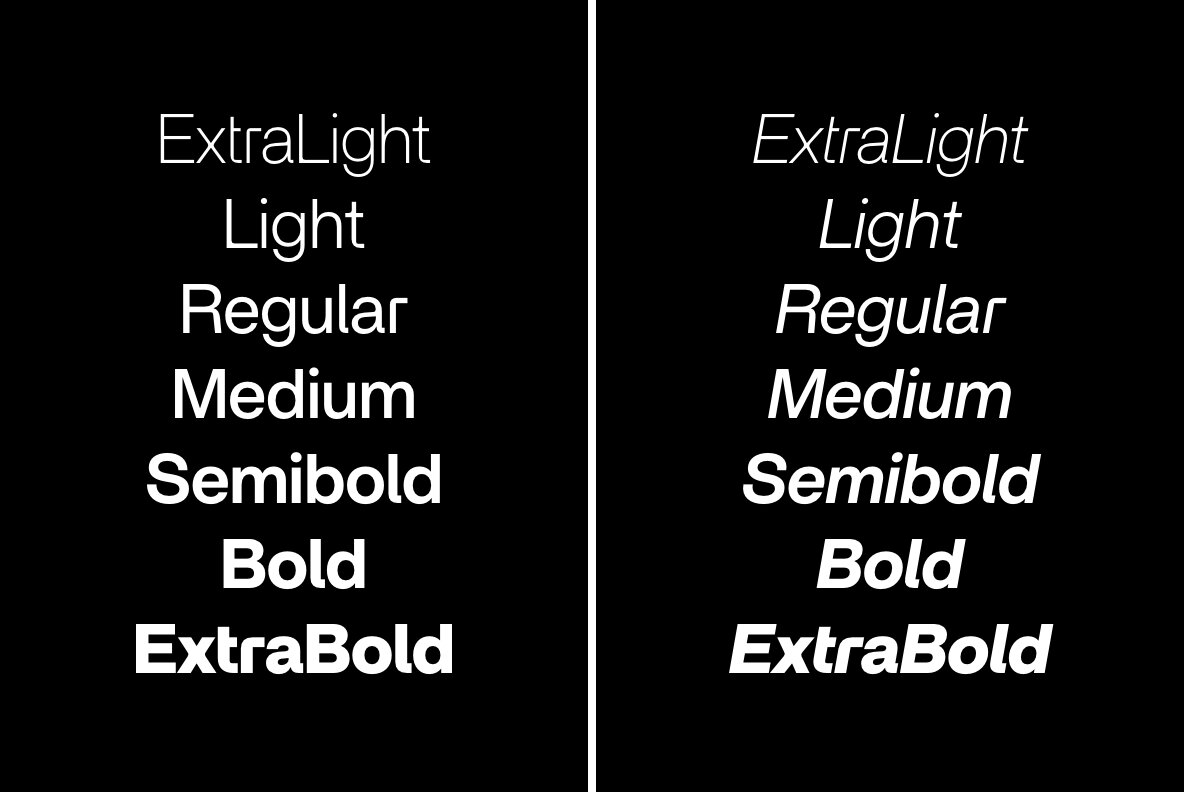
Britti Sans 1
Britti Sans is a modern grotesque typeface that has geometric details and deep roots in industrial design principles. Its opentype features (alternate characters, localised characters, multilingual characters) give it greater versatility allowing it to adapt to a wide range of contexts.
Among its features are contextual alternates, uppercase and lowercase localized Sharp S, numerators and denominators, a wide range of currency symbols including the Bitcoin symbol, emojis and icons, proportional and tabular numbers, fractions and circled numbers.
The family has 7 styles + italics and a two-axis variable cut. Any suggestion will be welcome to improve it.